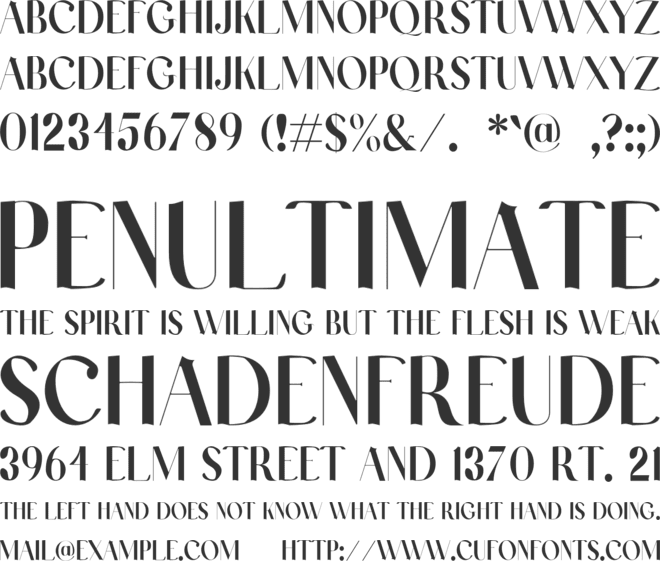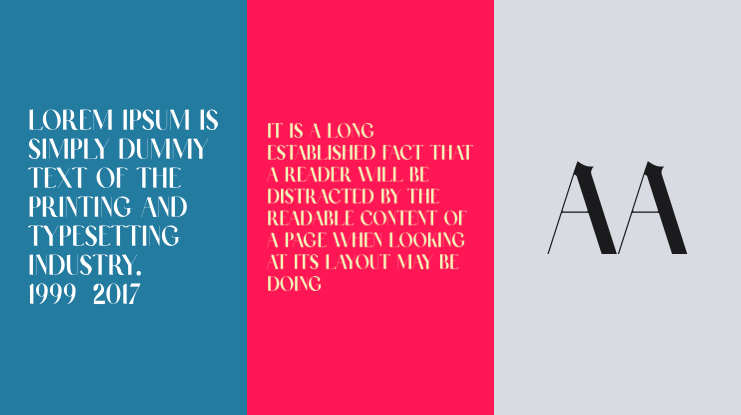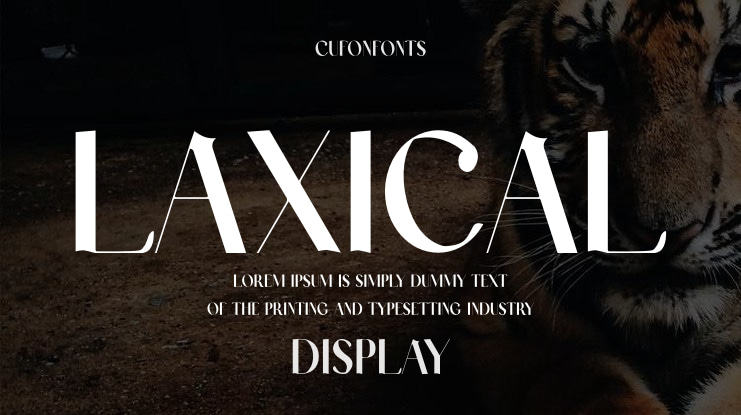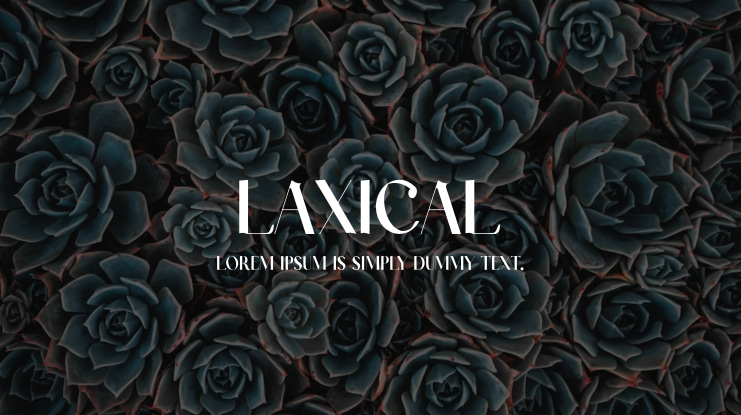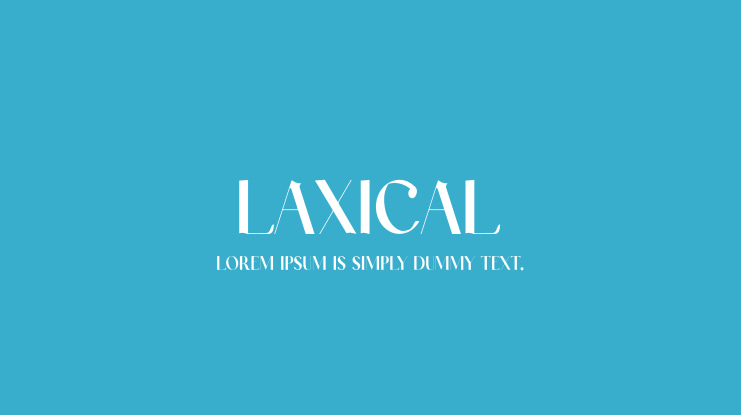
Introducing Laxical, an exquisite serif font that seamlessly marries timeless sophistication with contemporary flair. This font is the ideal choice for those seeking a classic yet modern typeface, especially for magazine layouts, eye-catching posters with large titles, and various design projects. Laxical is available in multiple licensing options to cater to your specific needs.
Classic Elegance, Modern Appeal:
Laxical boasts the enduring charm of a classic serif typeface, making it a reliable choice for projects that demand a touch of elegance. Its modern twist adds a fresh dimension, making it versatile and suitable for a wide range of design applications.
Perfect for Magazines and Posters:
Laxical's distinguished letterforms make it a standout option for magazine layouts and attention-grabbing posters. Whether it's headlines, subheadings, or body text, Laxical ensures your content exudes sophistication.
Versatility at Its Core:
Laxical's adaptability knows no bounds. Its versatile character set and elegant letterforms make it an excellent choice for branding, packaging, invitations, and more. It effortlessly adds a touch of refinement to any design.
Elevate Your Typography:
With Laxical, you're not just selecting a font; you're elevating your typography game. Its harmonious balance between classic and contemporary aesthetics ensures that your designs leave a lasting impression.
Upgrade Your Designs with Laxical – Where Classic Meets Modern Sophistication.